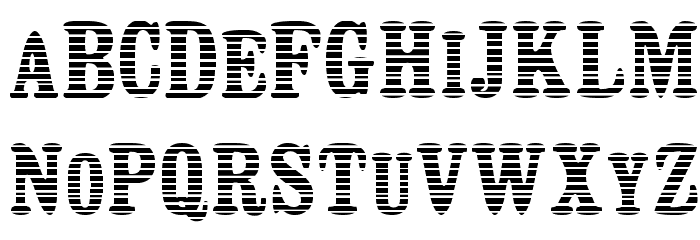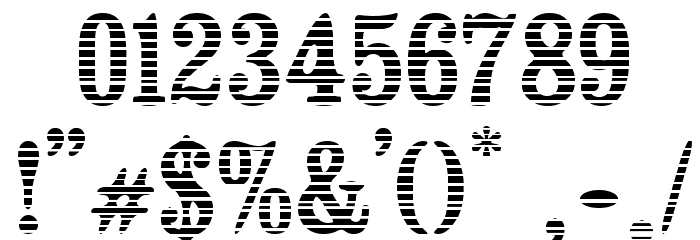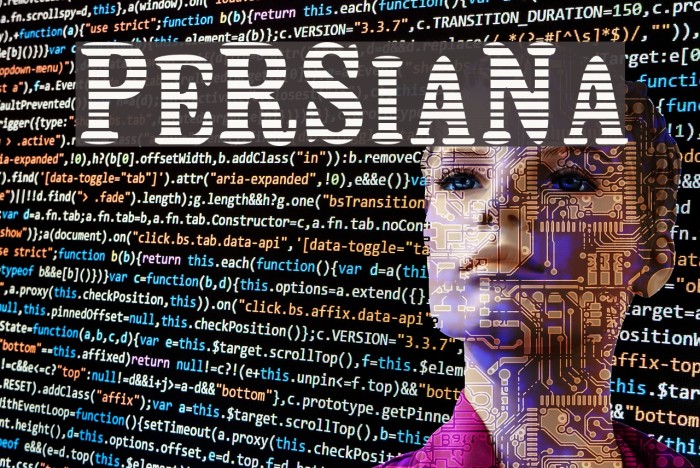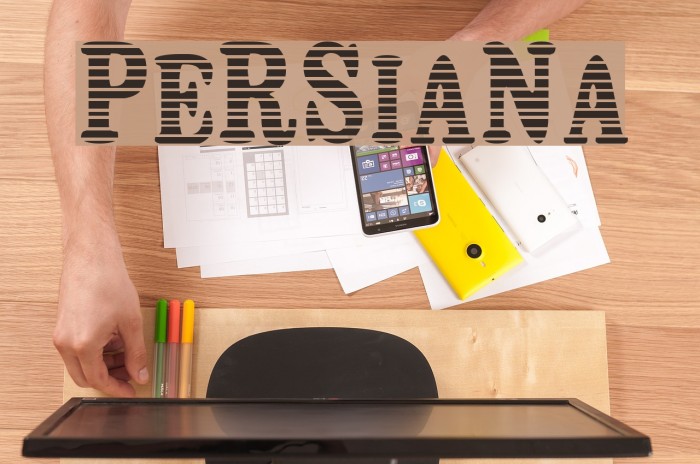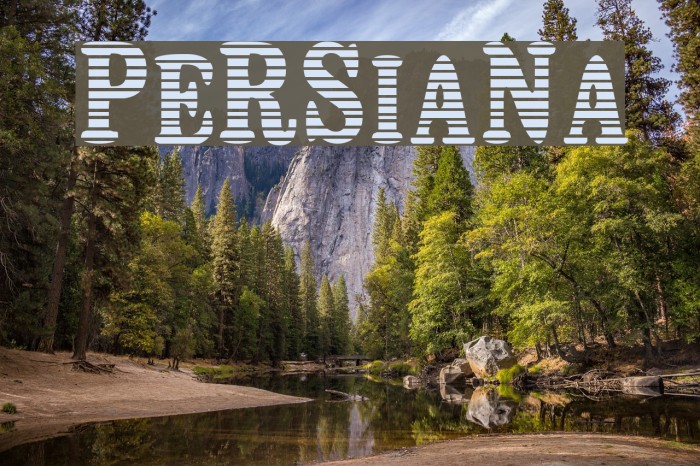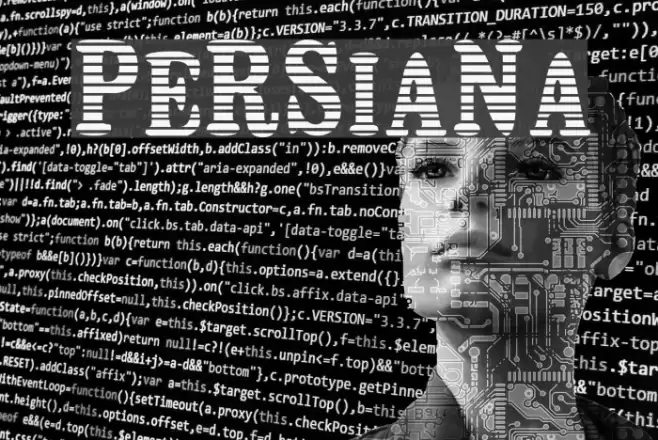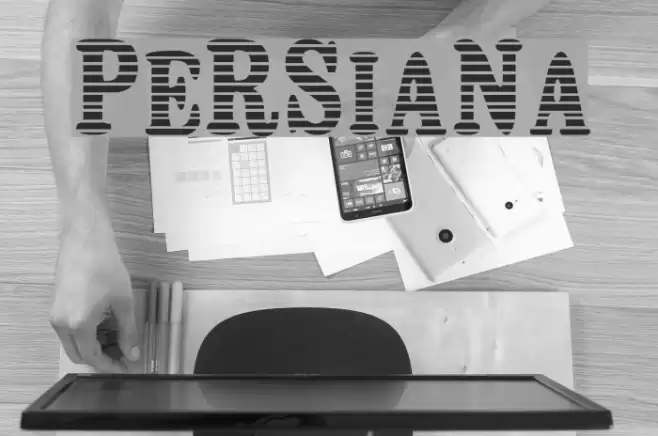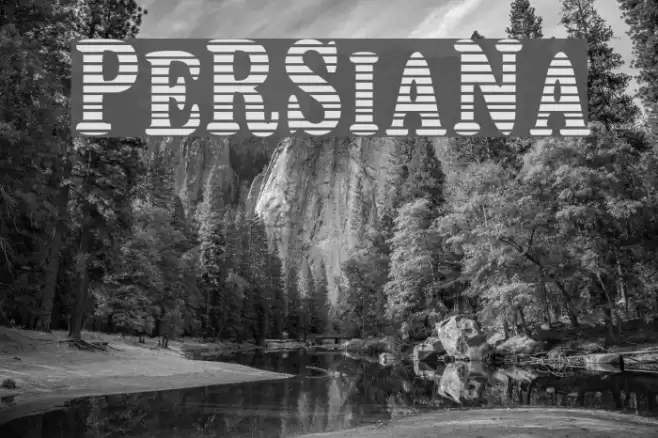
Persiana Font
This font features a bold, decorative style with a unique striped pattern running horizontally across each character. The uppercase and lowercase letters maintain a consistent width, giving the font a uniform appearance. The numbers and special characters are designed with the same striped effect, ensuring a cohesive look across all elements. The font's boldness and distinctive design make it stand out, while the stripes add a playful and modern twist. This font is ideal for projects that require a strong visual impact and a touch of creativity.
A bold, decorative font with a unique horizontal striped pattern.
- Proposed Projects: Ideal for posters, branding, headlines, and any project needing a bold, eye-catching design.